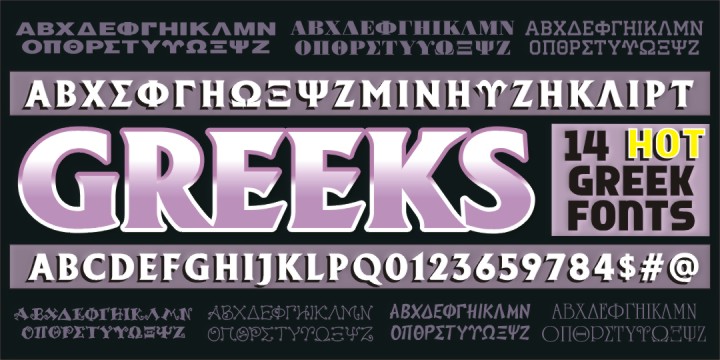
Greek Font Set #1 Font is perfect for classical studies publications, ancient history museums, Greek restaurant branding, archaeological documentation, philosophy department materials, mythology book covers, fraternity and sorority identity, educational Greek language materials, and cultural heritage exhibitions. This authentic typeface brings classical antiquity and Hellenic tradition to both digital and print design applications.
Greek Font Set #1 Font is exciting because it authentically preserves the elegance and historical significance of ancient Greek letterforms, making it an exceptional choice for designers who want to convey classical heritage with scholarly accuracy. Its carefully researched character shapes and traditional Greek proportions provide the perfect combination of historical authenticity and contemporary functionality, ensuring your projects communicate cultural depth, intellectual tradition, and timeless classical beauty that honors Hellenic civilization.
The Greek Font Set #1 Font family includes comprehensive Greek alphabet characters, diacritical marks, and traditional variant forms with both uppercase and lowercase letters, numerals, and punctuation marks. Each character maintains authentic Greek aesthetic principles while offering complete Unicode support for modern Greek typography, allowing scholars and designers to create accurate classical and modern Greek text compositions with historical precision.
Whether you're designing for educational institutions, cultural organizations, or heritage brands, Greek Font Set #1 Font Free Download delivers unmatched authenticity and classical appeal that resonates with audiences seeking genuine cultural connection. This premium typeface offers designers the historical accuracy and typographic excellence needed to create designs that communicate Greek heritage, classical scholarship, and cultural sophistication effectively. The font's classical character makes it ideal for academic texts, cultural materials, and educational applications where Greek authenticity is essential. Download Greek Font Set #1 Font today and honor your creative projects with genuine classical sophistication and authentic Greek typography excellence.